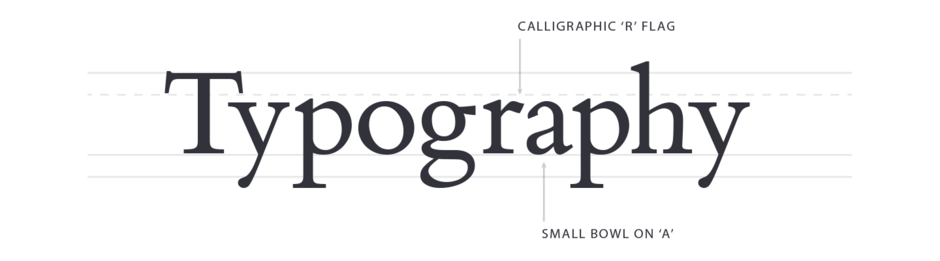
Bembo Book Font Field Guide
Foundry: Monotype Designers: Francesco Griffo & Robin Nicholas Classification: Serif, Old Style Serif
The Bembo® typestyle has been the go-to typeface for fine text typography since it was first released in 1929. The Bembo® Book family carries on the tradition of the design maintaining the grace, elegance and legibility of the of the early 20th century typeface.
Two weights of roman with complementary italic designs. Both Bembo® Book Regular and Bold have small caps.
- Three years after Aldus’ typefaces was first used, the basic font was enhanced by with a suite of capital letters. Previously, capitals were pulled from other fonts prior to the release of these new designs.
- The original Aldus Bembo also had no italic designs, In its 1929 revival, the Monotype design staff created a new italic based on the works of Giovanni Tagliente, a 16th century writing master.
Roots
The fonts made by Francesco Griffo and used by Aldus Manutius in 1495, provided the inspiration for the Bembo® typeface. Monotype’s designers used antique books and specimen material set with Aldus’ original fonts as the basis for their design. The first phototypesetting and digital versions were based on the original Monotype drawings. Unfortunately, the new fonts did not take into account the “ink spread” of using inked fonts on paper. The result was a design that had the elegance of the original – but lacked its robustness.
Bembo® Book was designed to better suit setting copy in text sizes. Outlines were also taken directly from the first Monotype drawings and digitized – but were then meticulously edited to preserve the design features and overall color of the original Bembo typeface in use.
Legibility
Ascenders are noticeably taller than the caps aiding their legibility at text sizes. Changes in stroke weight are obvious but not dramatic. Serifs are hardy with ample bracketing.
How to spot Bembo Book